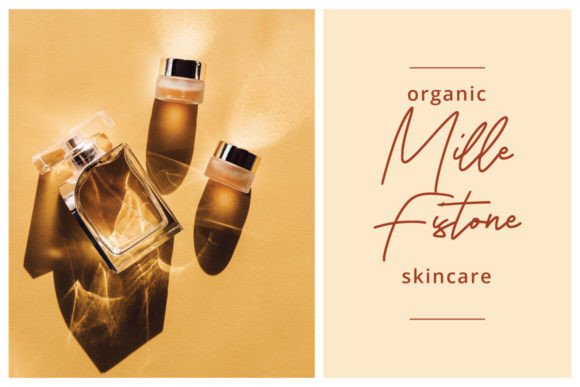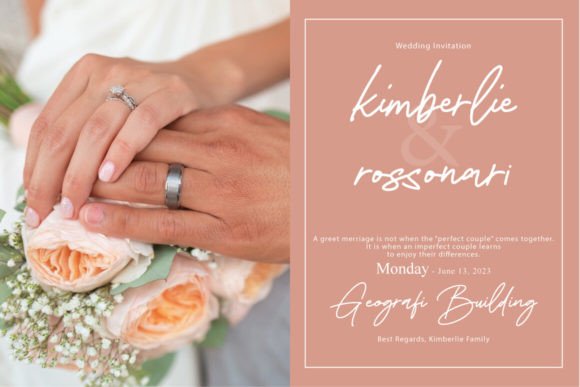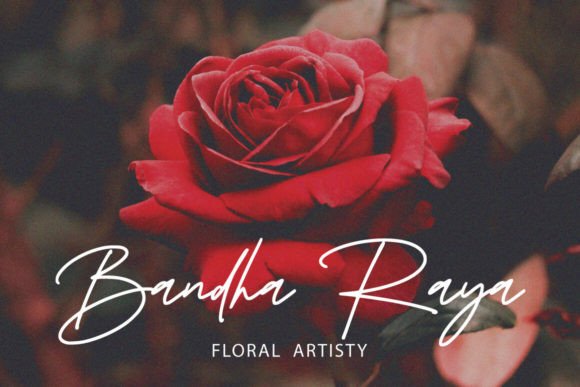
Introduction to Revilia Font Font
Fonts play a crucial role in design, and the Revilia Font font is a typeface that brings both character and versatility to any project. Whether you’re working on a branding project, a website, or a print design, the Revilia Font font offers a unique style that can elevate your work.
Revilia Signature with a handmade Signature style, decorative characters and a dancing baseline.
So beautiful on invitation like greeting cards, branding materials, business cards, quotes, posters, and more Reviliaa Signature come with 200+ glyphs.
Key Features of Revilia Font Font
Why Choose Revilia Font Font?
The Revilia Font font is more than just a typeface – it’s a design tool that helps you communicate your message with style and clarity. Its unique character set and versatile design make it suitable for a wide range of applications, from elegant invitations to bold headlines.
With its carefully crafted letterforms and balanced proportions, the Revilia Font font ensures readability and visual appeal across all mediums.
What makes Revilia Font font special?
The Revilia Font font stands out with its unique design, exceptional readability, and versatility across various design applications.